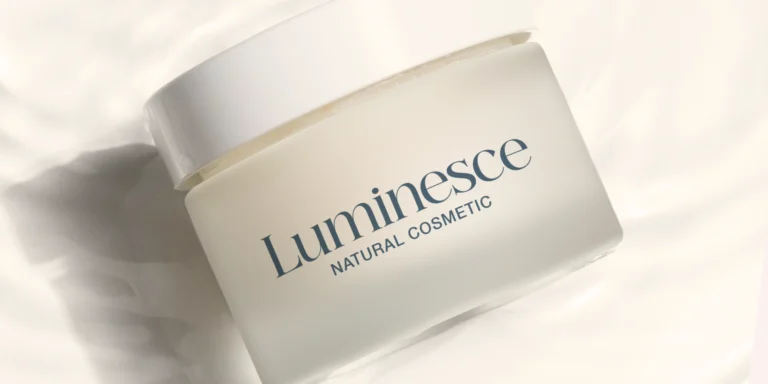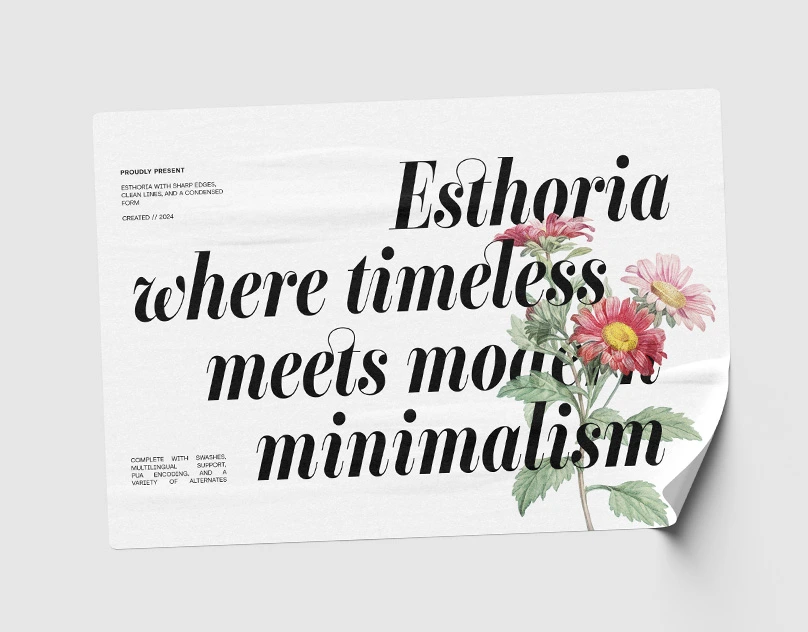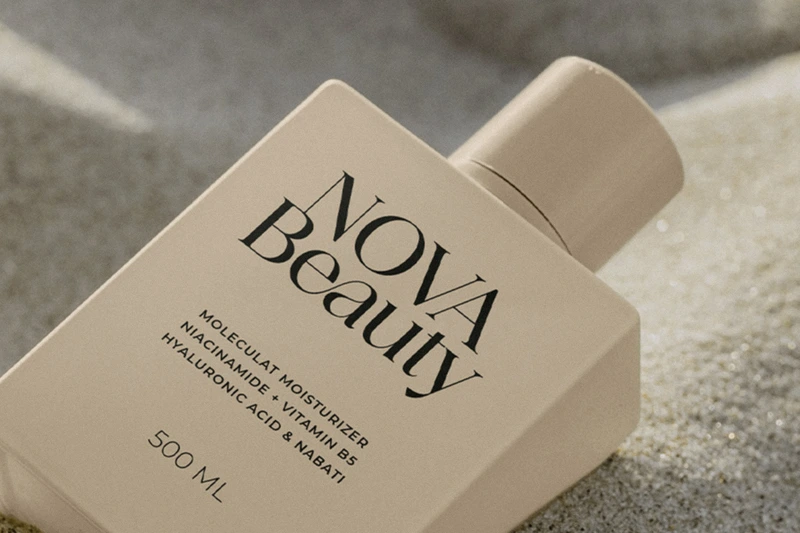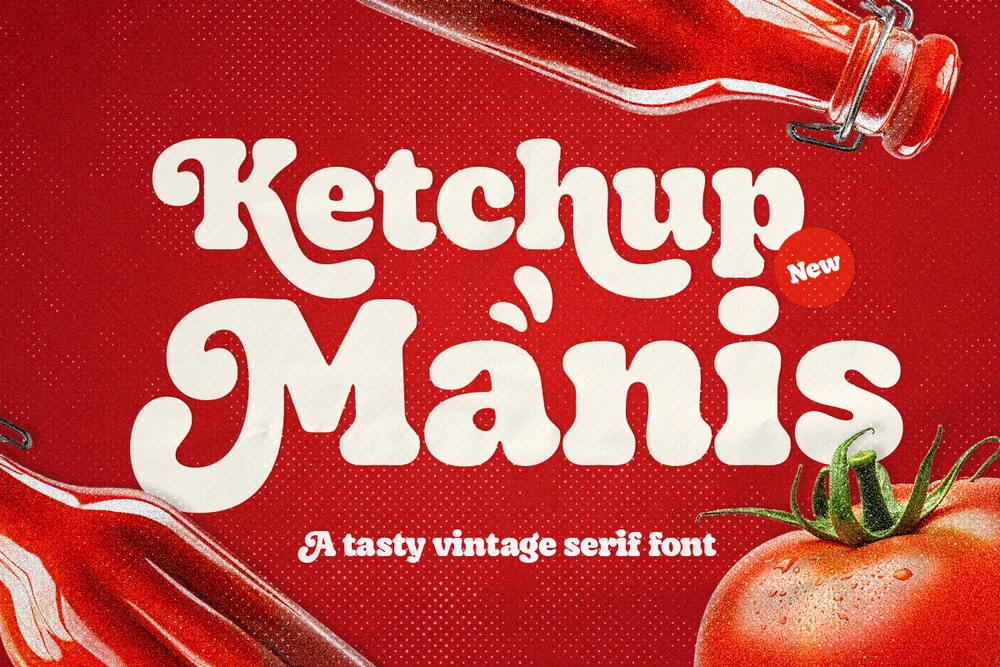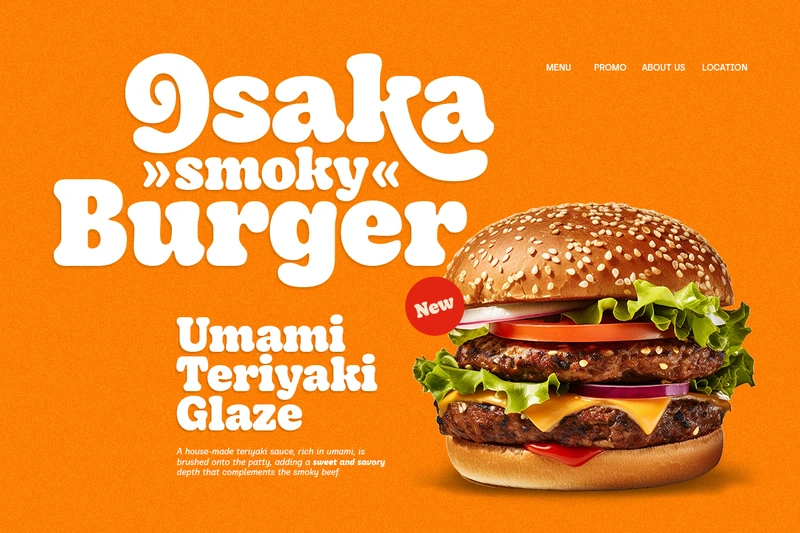
5 Best Elegant Serif Fonts for Luxury Logos in 2026
Serif font recommendations for logos that will be trending in 2026
Minimalist beauty product packaging mockup for Nova Beauty placed on a sandy surface featuring Ethereal luxury serif font
When it comes to luxury branding, typography is everything. Whether you are designing a visual identity for a high-end fashion label, a boutique hotel, or a premium jewelry brand, the right font speaks volumes before a single word is read.
While sans-serifs offer a clean, tech-focused look, elegant serif fonts bring an undeniable sense of heritage, sophistication, and timeless beauty. High-contrast strokes and graceful terminals instantly elevate a brand’s perceived value.
If you are looking for the perfect typeface for your next premium project, here are the top elegant serif fonts for luxury logos in 2026.
1. Esthoria – Sophisticated High-Contrast Serif
Esthoria elegant high-contrast serif font used in a luxury logo design mockup
If you are aiming for a modern minimalist yet highly sophisticated aesthetic, Esthoria is a must-have in your design arsenal. This high contrast serif typeface balances classic proportions with contemporary sharpness, making it incredibly versatile.
• Best for: Fashion editorial layouts, luxury cosmetics, and elegant logo marks.
• Features: 6 versatile styles, perfect for both display headings and readable body copy.
2. Manisku – Bold Vintage Playful Serif
Ketchup Manis bold vintage serif font displayed on a premium branding mockup
Luxury doesn’t always mean rigid and traditional. Ketchup Manis brings a bold, vintage, and slightly playful character to the serif family. Its rounded edges and heavy weight make a strong, confident statement without losing its premium feel.
• Best for: Boutique food & beverage brands, retro-modern packaging, and impactful headlines.
• Features: Unique rounded terminals that add a distinct, approachable personality to luxury brands.
3. The Power of Custom Ligatures
Ethereal font for custom ligatures and elegant swashes in a premium serif font for bespoke logos
Font used: Ethereal
To truly make a logo unique, designers often rely on ligatures—special characters where two or more letters are joined together. When selecting a serif font for a high-end brand, always look for typefaces that offer a robust set of OpenType features, including stylistic alternates and custom ligatures, to give your logo a bespoke, hand-lettered feel.